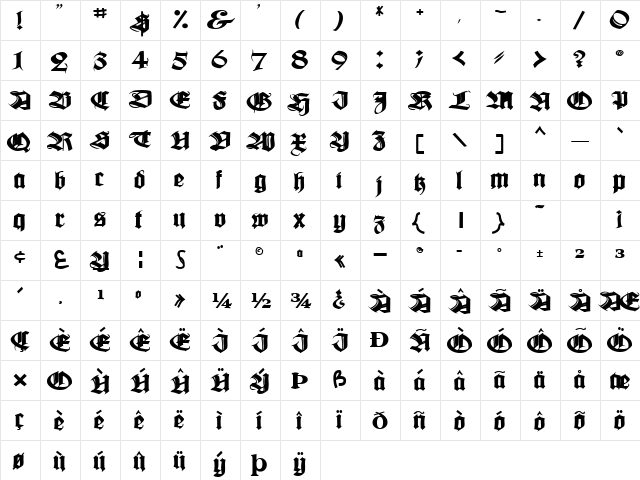
JusticePlain112 Bold Font Preview
JusticePlain112 Bold
JusticePlain112 Bold Font Details
Design Context for JusticePlain112 Typeface
JusticePlain112 is a composed and adaptable typeface that performs quietly and consistently across a wide range of design contexts. The heavy weight commands attention and anchors typographic hierarchies.